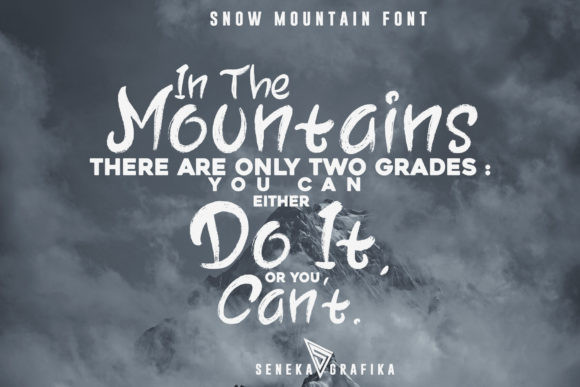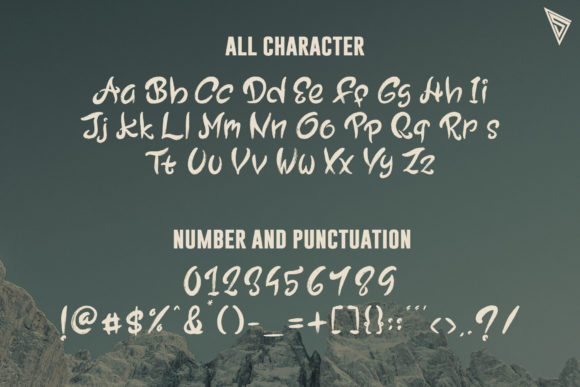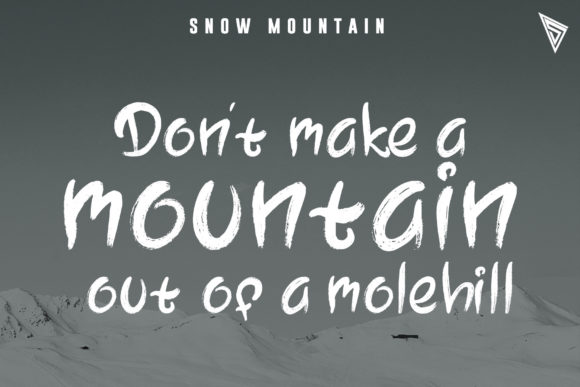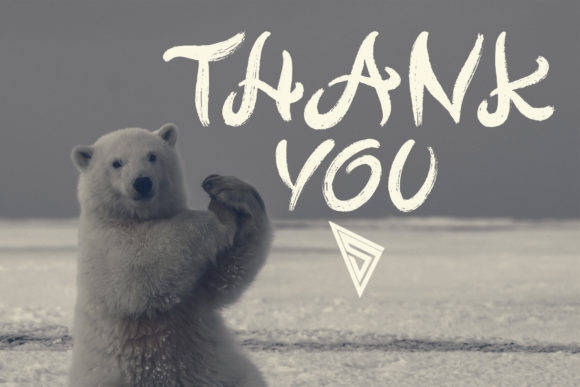
Introduction to Snow Mountain Font
Have you ever found yourself stuck in a creative rut, staring blankly at a blank canvas, desperate for the perfect font to bring your idea to life? That’s exactly what happened to me last week when I was working on a poster design for a friend’s birthday party. I wanted something unique, yet simple, to match the playful vibe of the event. That’s when I stumbled upon the Snow Mountain Font, and it was love at first sight!
This gorgeous brushed font is not only visually stunning but also incredibly versatile, making it a valuable asset for designers working on a wide range of creative projects. Whether you’re looking for a free download to spice up your next design or a high-quality font to take your branding to the next level, Snow Mountain Font is definitely worth checking out.
Key Features of Snow Mountain Font
- Unique, hand-drawn design with a modern twist, perfect for creative projects
- Ideal for use in digital and print projects, including logos, graphics, and typography
- Comes with a comprehensive character set, including uppercase and lowercase letters, numbers, and punctuation
Honest Review: Snow Mountain Font
I recently came across the Snow Mountain Font and was immediately drawn to its unique, winter-inspired design. As a designer, I’m always on the lookout for high-quality fonts that can add a touch of personality to my creative projects.
One of the things that works well with this font is its versatility. It’s perfect for a variety of design projects, from wedding invitations to product labels. The font is also available for free download, making it an excellent resource for designers on a budget.
- ✨ High-quality design that’s perfect for winter-themed projects
- ✨ Versatile font that can be used for a variety of design projects
One limitation I’ve found with this font is that it may not be suitable for all design projects. The winter theme can be a bit overpowering, and may not be the best choice for designs that require a more subtle approach.
Overall, I’m impressed with the Snow Mountain Font. It’s a great addition to any designer’s toolkit, and I would definitely recommend it for anyone working on a creative project that requires a touch of winter wonder.
However, I do wish the font had a bit more flexibility in terms of customization. At times, the design can feel a bit rigid, which can limit its potential.
The Snow Mountain Font is perfect for various creative projects, including wedding invitations, birthday cards, and holiday greeting cards. Its high quality and transparent background make it ideal for creating eye-catching designs that stand out.